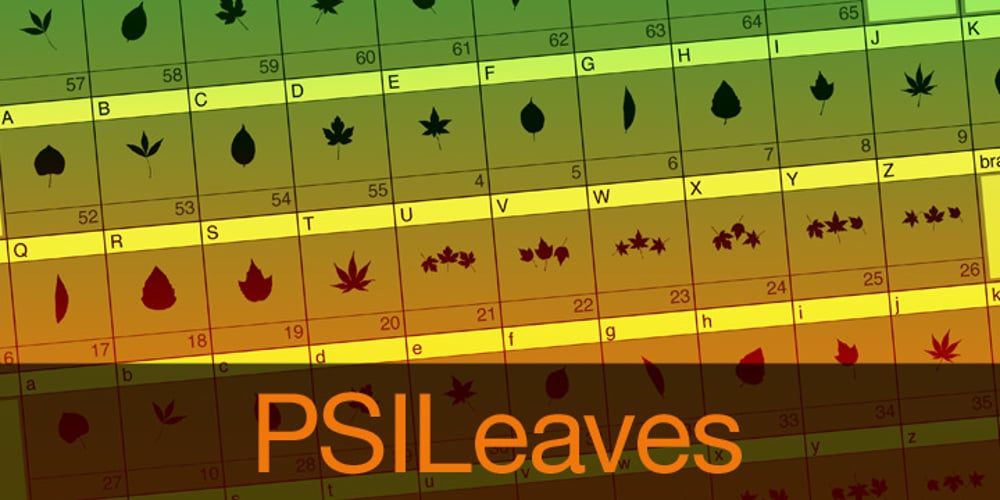
PSI Leaves Font Family was designed by Roger Ridpath and published by FontFuel. PSI Leaves contains 1 styles and family package options. This is a leaves symbols font. Font elements are created from a base set of leaves. What that means is they work perfectly together. Professional artists and designers will appreciate all the ways you can combine these elements or use a single one for a simple elegant logo design. PSI Leaves works great for borders by simply creating a repeating pattern. Scrap-bookers can create beautiful and complex page designs with a few clicks. Thousands of uses equal thousands of ideas!